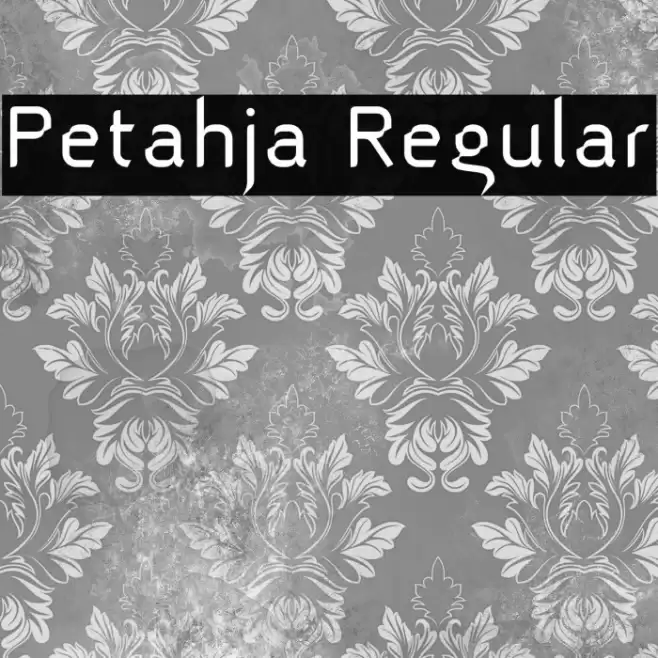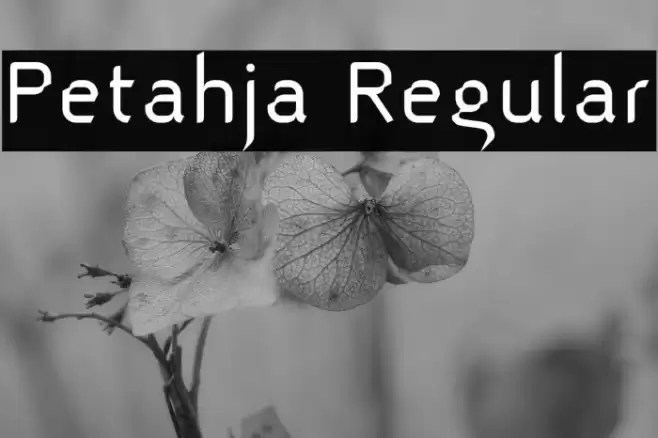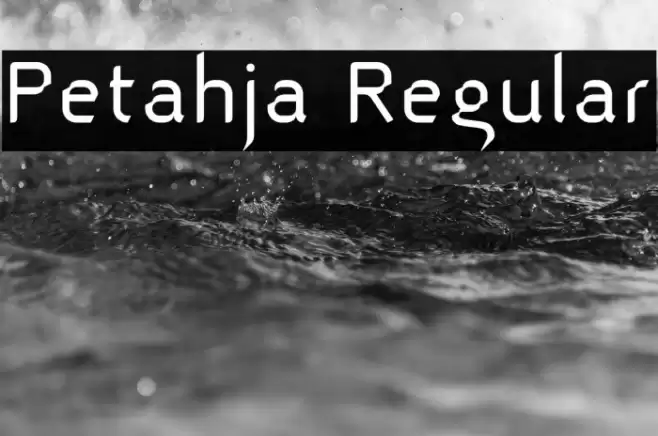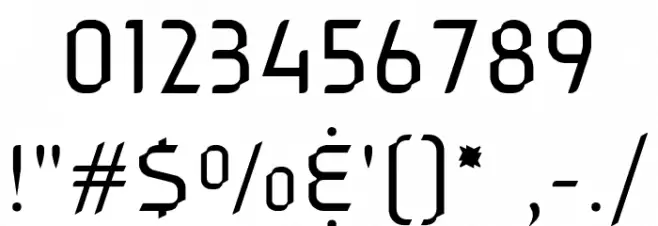
Petahja Regular Font
Petahja Regular Description
This font features a modern and geometric design with a distinct angular style. The uppercase letters are bold and structured, with sharp edges and a futuristic feel. The lowercase letters maintain a consistent geometric form, offering a clean and contemporary look. The numerals are clear and legible, matching the overall aesthetic with their angular construction. Special characters are designed to complement the main character set, maintaining the same sharp and modern appearance. This font is ideal for projects that require a sleek and cutting-edge look.
A modern, geometric font with angular, futuristic styling from Sans Serif fonts.
- Proposed Projects: Ideal for technology branding, modern advertising, and futuristic design projects.
- Use Case: Headlines, Logos, Branding